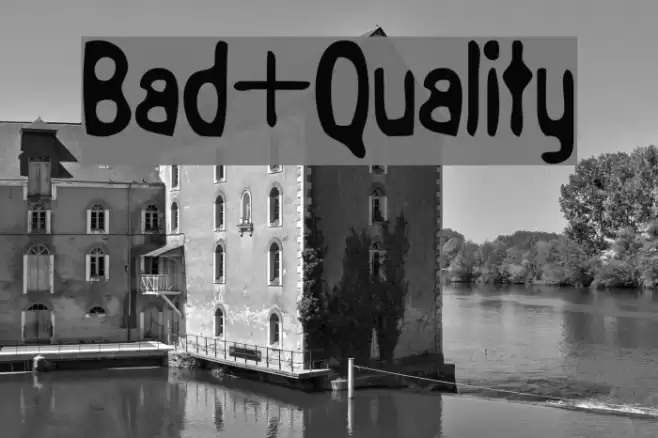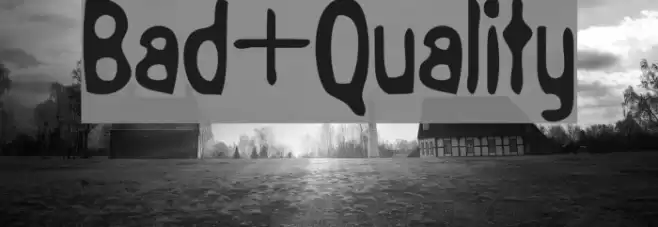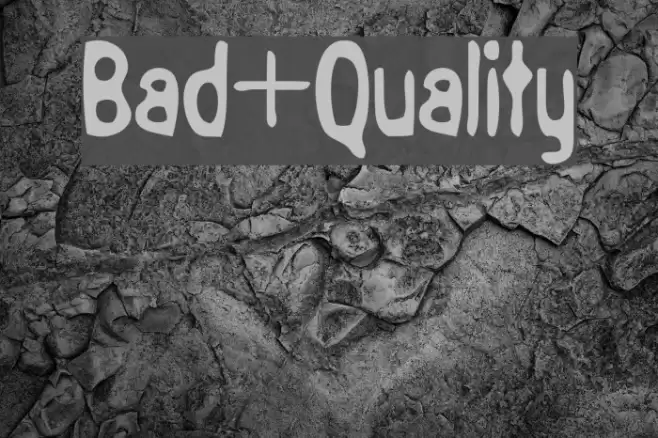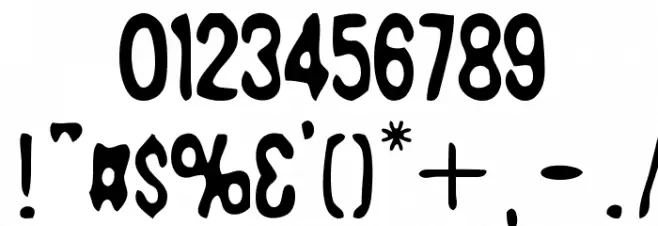
Bad+Quality Font
Bad+Quality Description
This font features a playful and bold design with a hand-drawn aesthetic. The characters are rounded and slightly irregular, giving them a whimsical and informal appearance. The uppercase and lowercase letters maintain a consistent style, with thick strokes and a slightly uneven baseline. The numerals and special characters follow the same playful design, making the font suitable for creative and fun projects. Its unique style stands out, making it ideal for eye-catching designs.
A playful, bold, and hand-drawn font with a whimsical style from Uncategorized fonts.
- Proposed Projects: Ideal for children's books, playful branding, party invitations, and creative posters.
- Overall Style: Playful